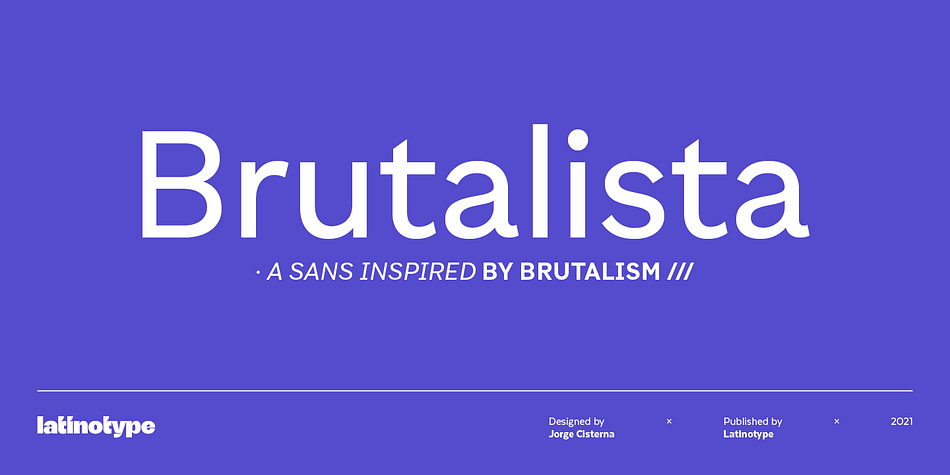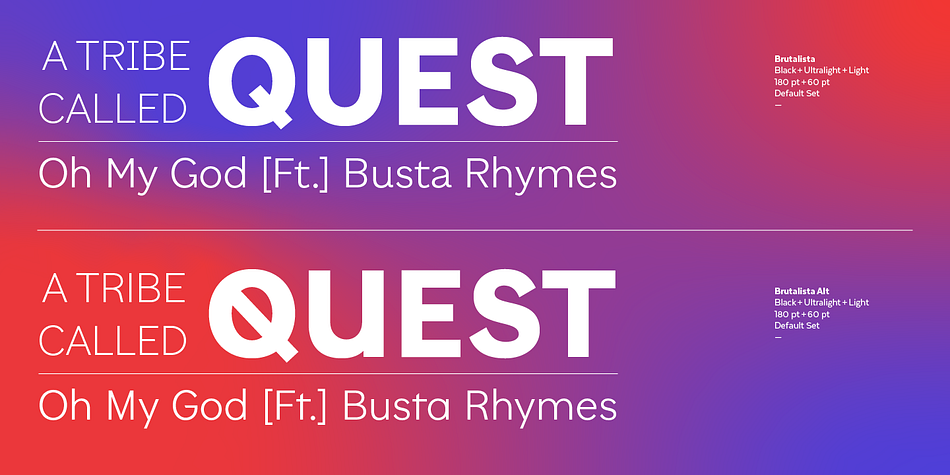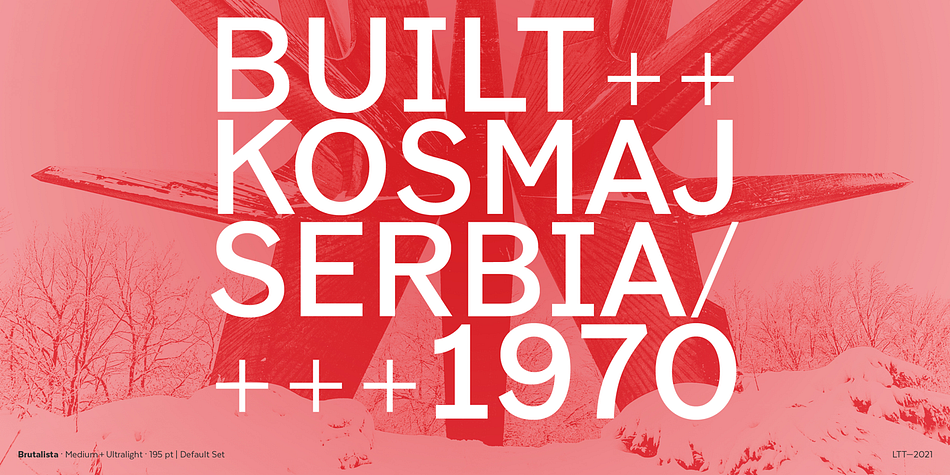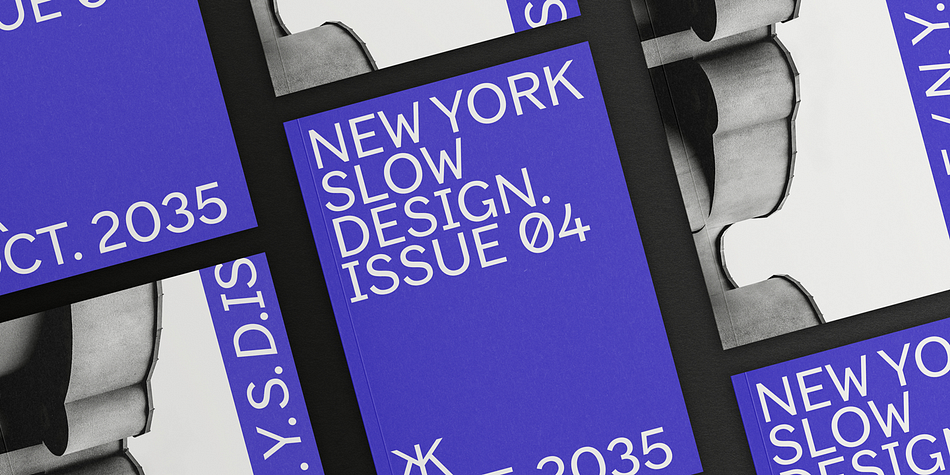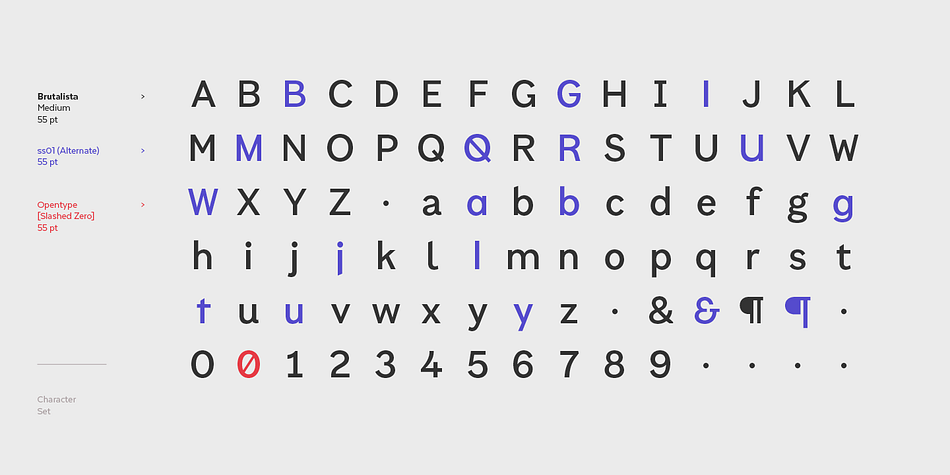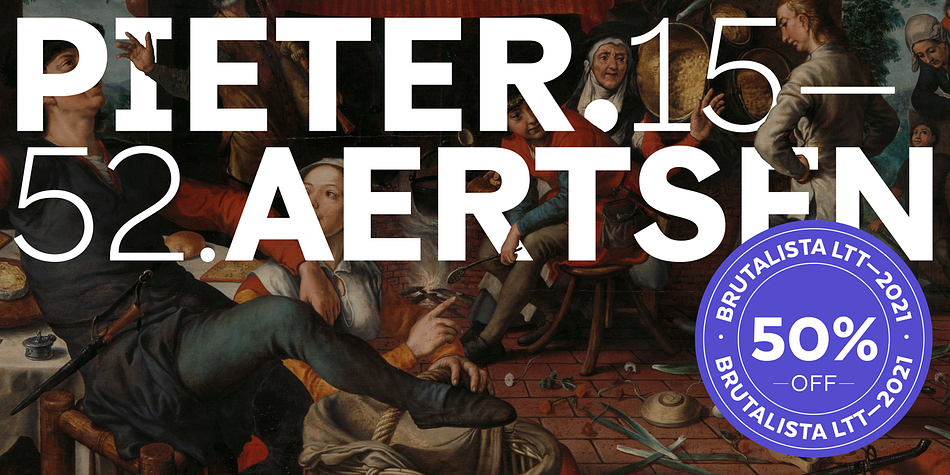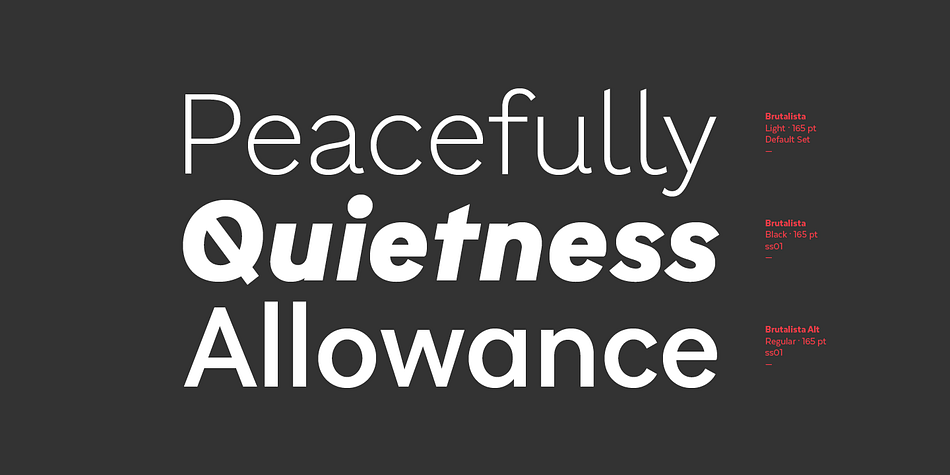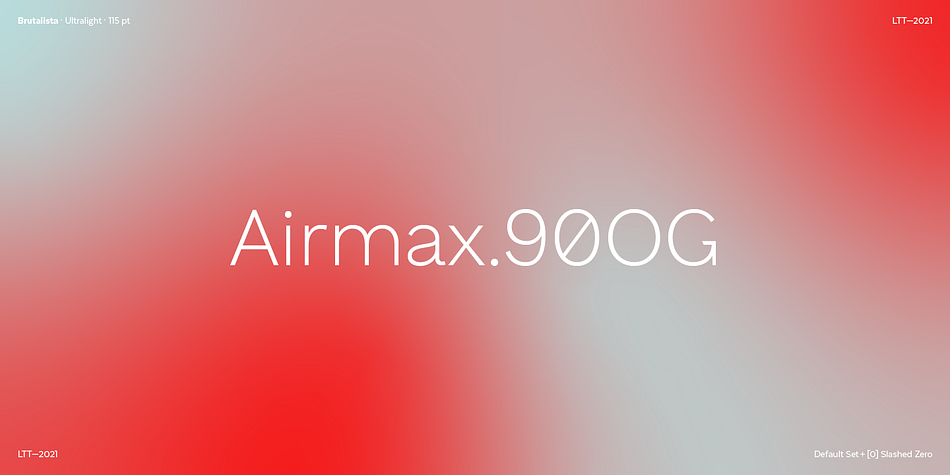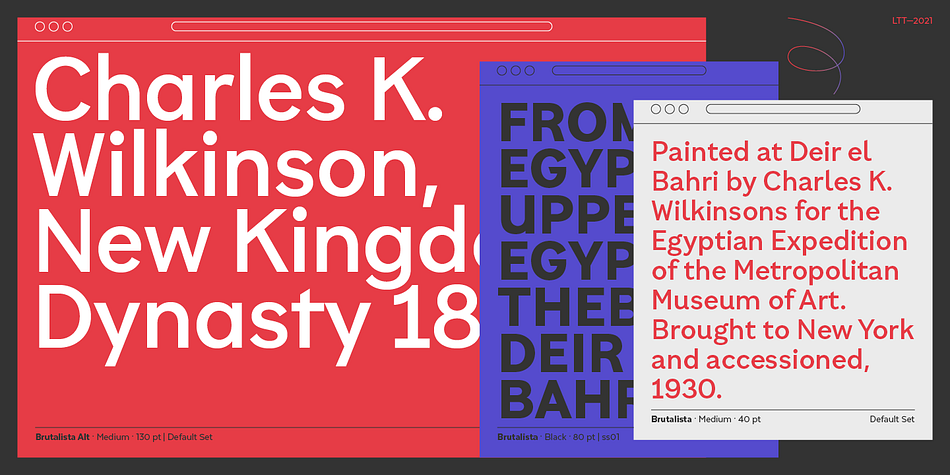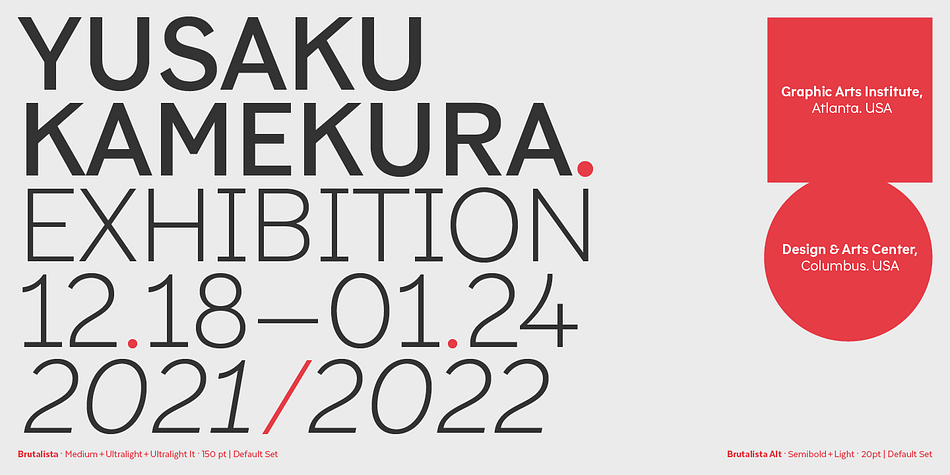
Brutalista
Designed by Jorge Cisterna, Brutalista is a sans serif font family. This typeface has twenty-eight styles and was published by Latinotype.
Brutalista is a typeface inspired by the architectural brutalist style, which seeks to use the expression of raw or raw material. In graphic design it has been used to break rules and attract attention.
His drawing has its roots in grotesque and neo-grotesque sources from the early twentieth century, but with a current style. It has a medium x height, clear counterforms, low contrast, which give it versatility and functionality. Peculiar cuts and drawings are also used in some characters, which give them personality
It is an ideal font for headlines and brands, but also for when you need to present simple and clear information.